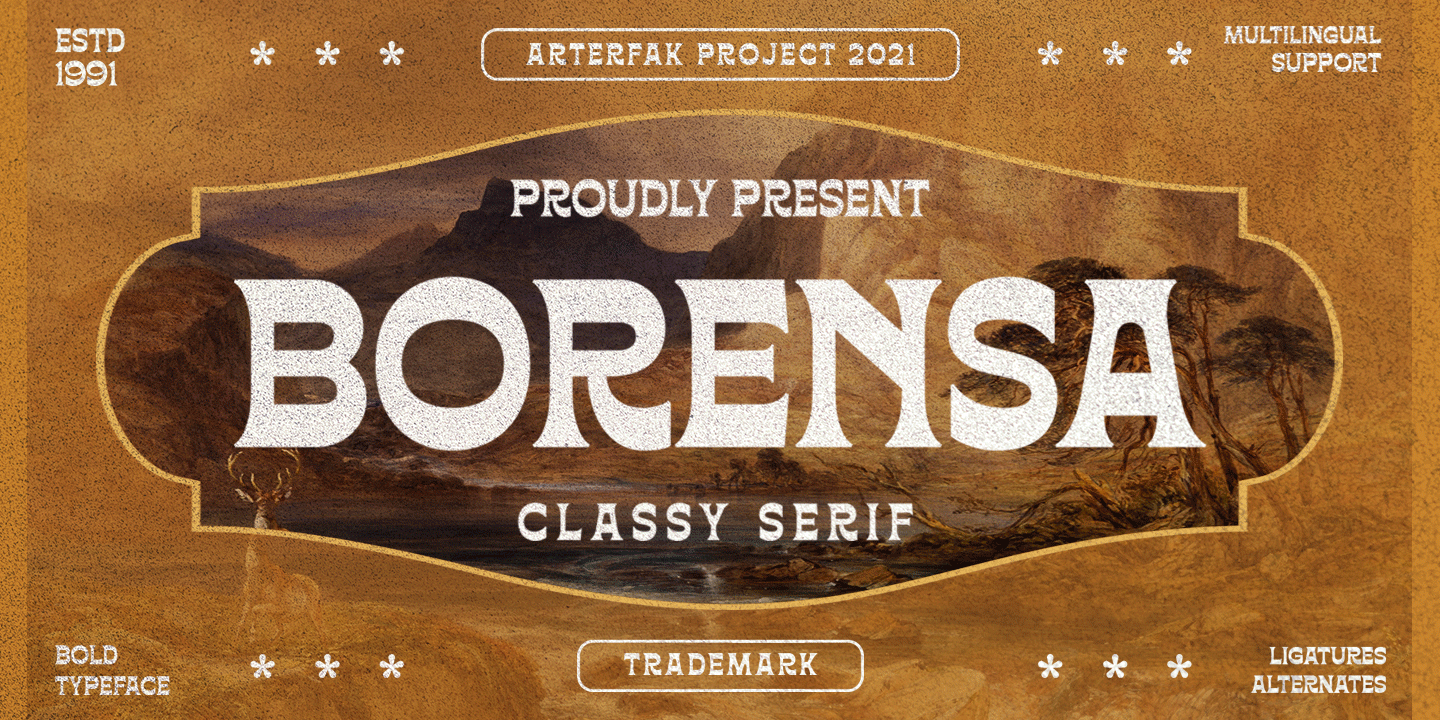
Borensa Font is perfect for luxury resort branding, Mediterranean restaurant menus, elegant wedding invitations, high-end fashion magazines, boutique hotel signage, exclusive spa materials, sophisticated wine labels, premium travel brochures, upscale dining establishments, and refined lifestyle marketing campaigns. This graceful typeface excels in applications where European sophistication and timeless elegance need to be communicated with refined charm and continental flair that embodies luxury lifestyle experiences.
What makes Borensa Font exciting is its extraordinary ability to capture the essence of European refinement through its beautifully balanced letterforms that exude sophistication and cultural elegance. The font embodies the spirit of Old World charm and contemporary luxury with its flowing curves and refined proportions that suggest centuries of artistic tradition combined with modern sensibilities. Its carefully crafted character details and sophisticated personality create an atmosphere of cultured excellence that resonates with discerning audiences seeking authentic luxury experiences and refined taste.
The Borensa Font family typically includes Light, Regular, Medium, and Bold weights, each maintaining the signature elegance and European sophistication. Some versions offer Italic variants with enhanced flowing characteristics and decorative elements that amplify the luxurious aesthetic. The family may also include Small Caps, ornamental swashes, and extended character sets that provide additional creative possibilities for upscale branding and elegant typography applications.
Whether you're creating luxury brand identities, sophisticated hospitality materials, or elegant lifestyle communications, Borensa Font Free Download delivers the perfect European refinement your premium projects deserve. Its sophisticated character and elegant styling make it an invaluable asset for luxury brands, hospitality businesses, and designers working in high-end markets where authentic European elegance and refined taste are essential for establishing credibility and attracting discerning clientele who appreciate genuine sophistication.